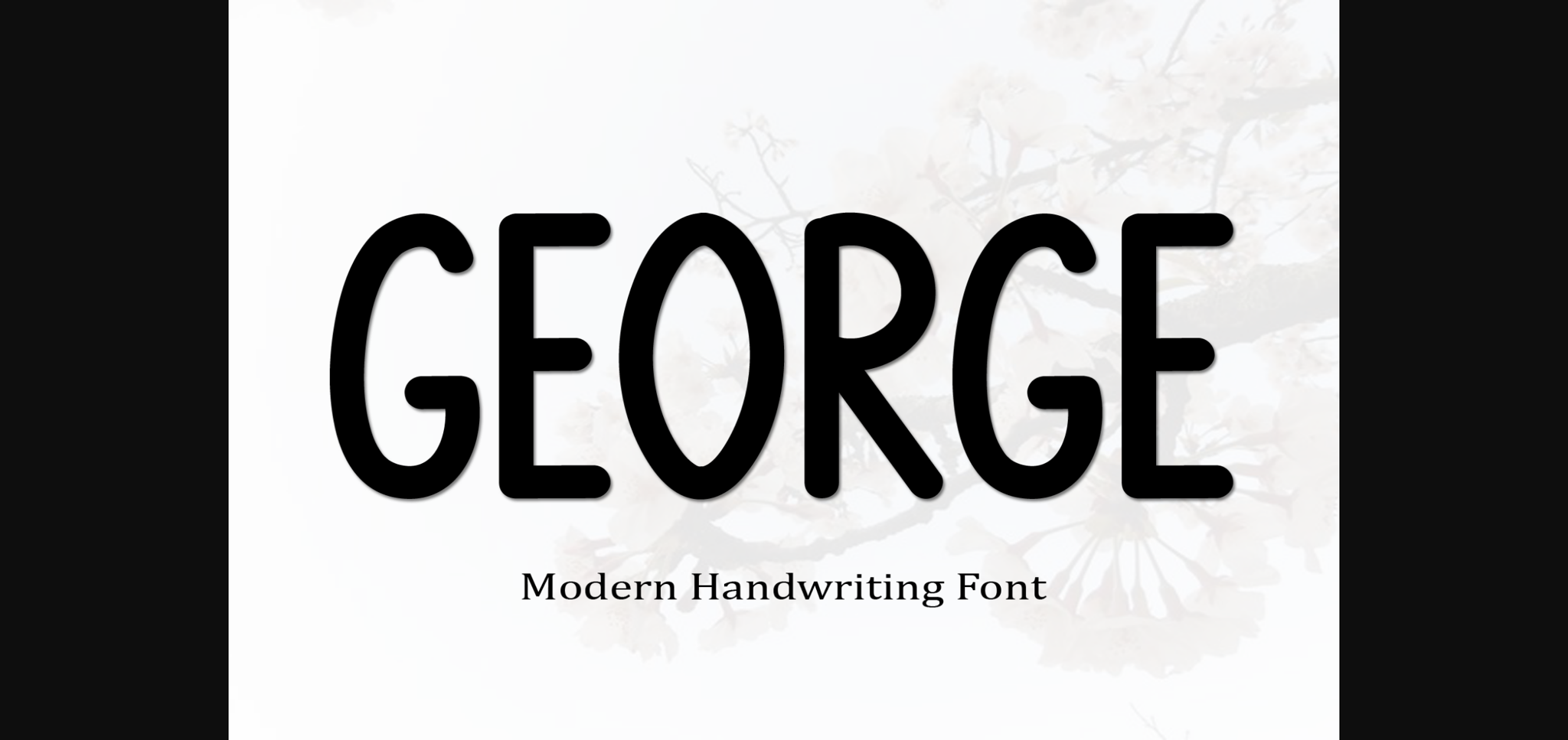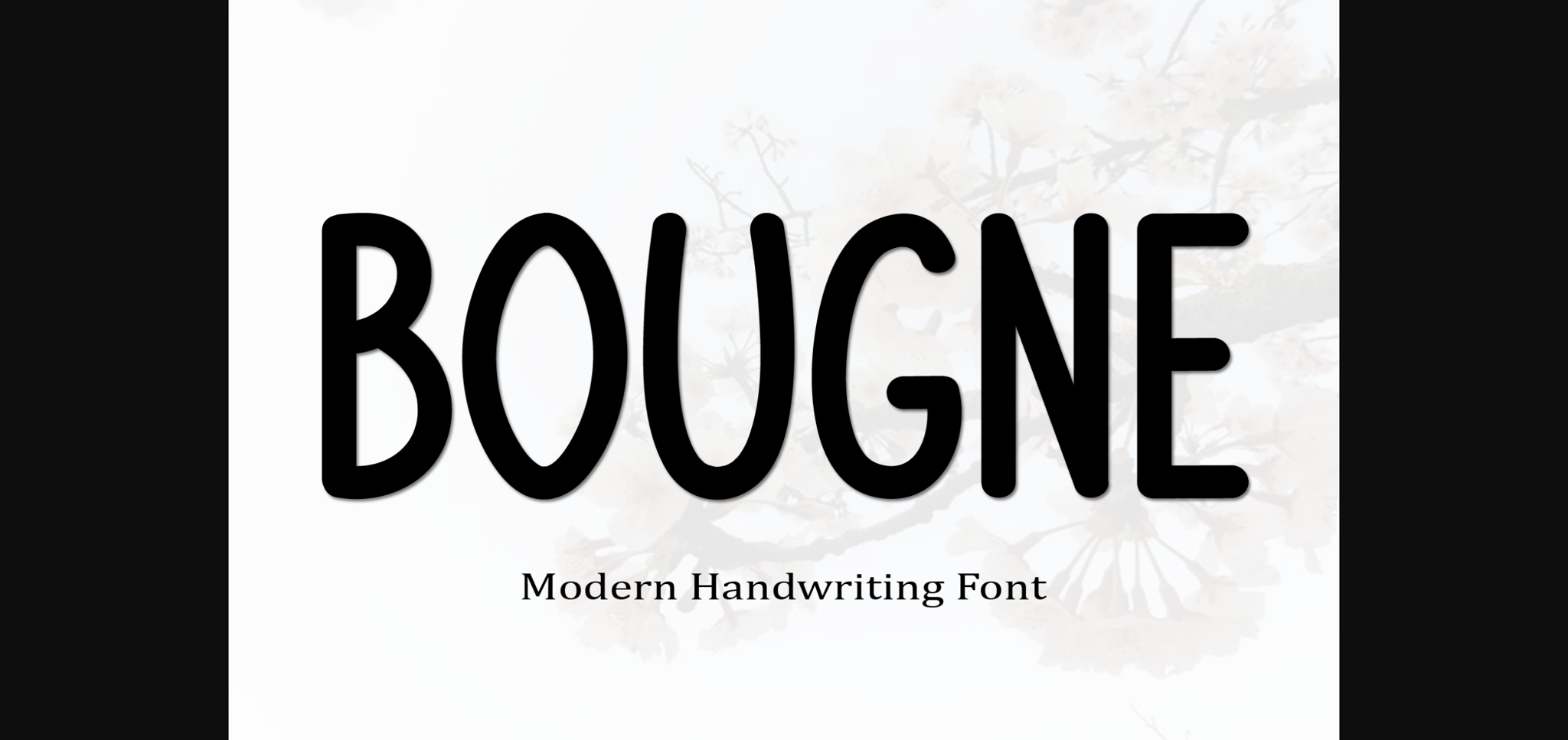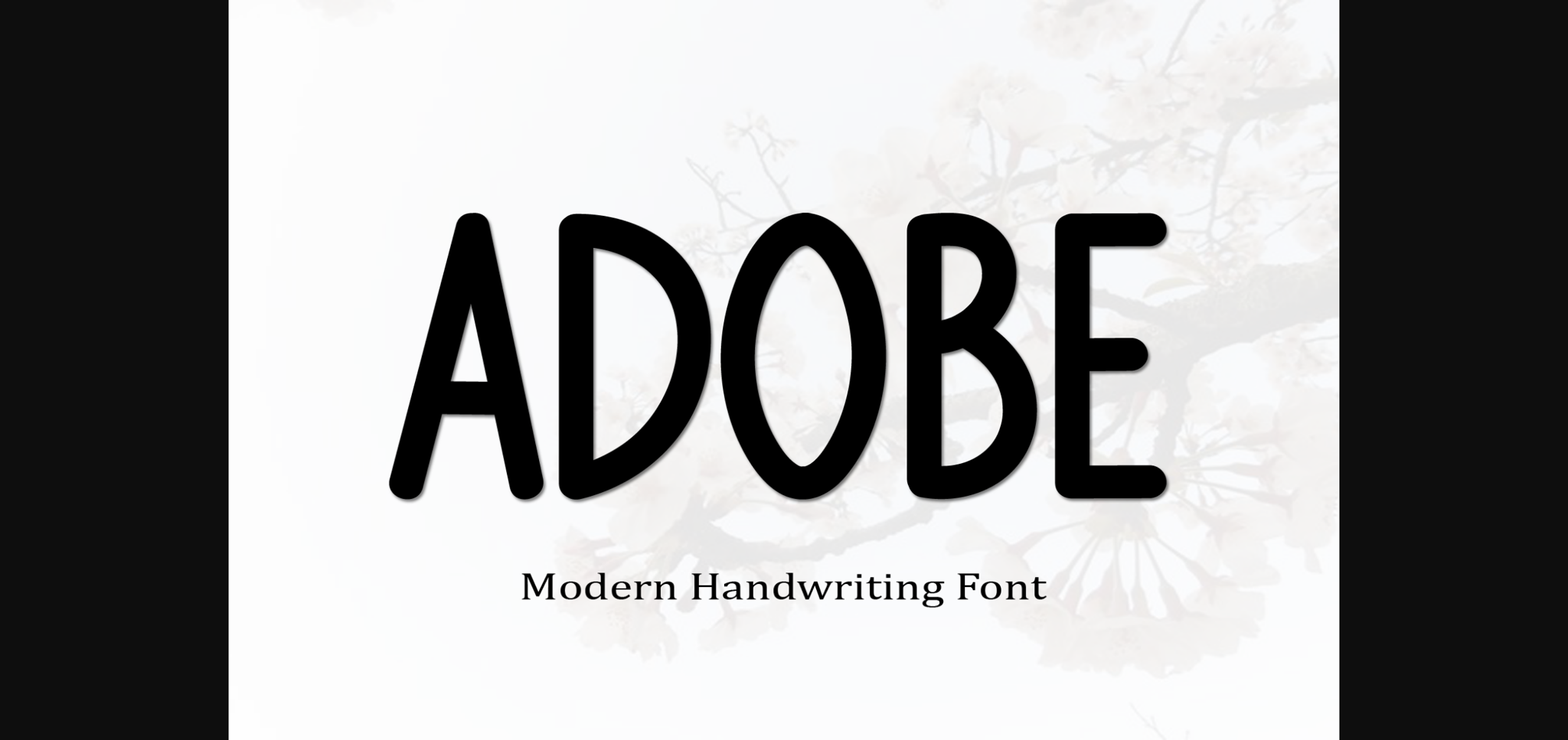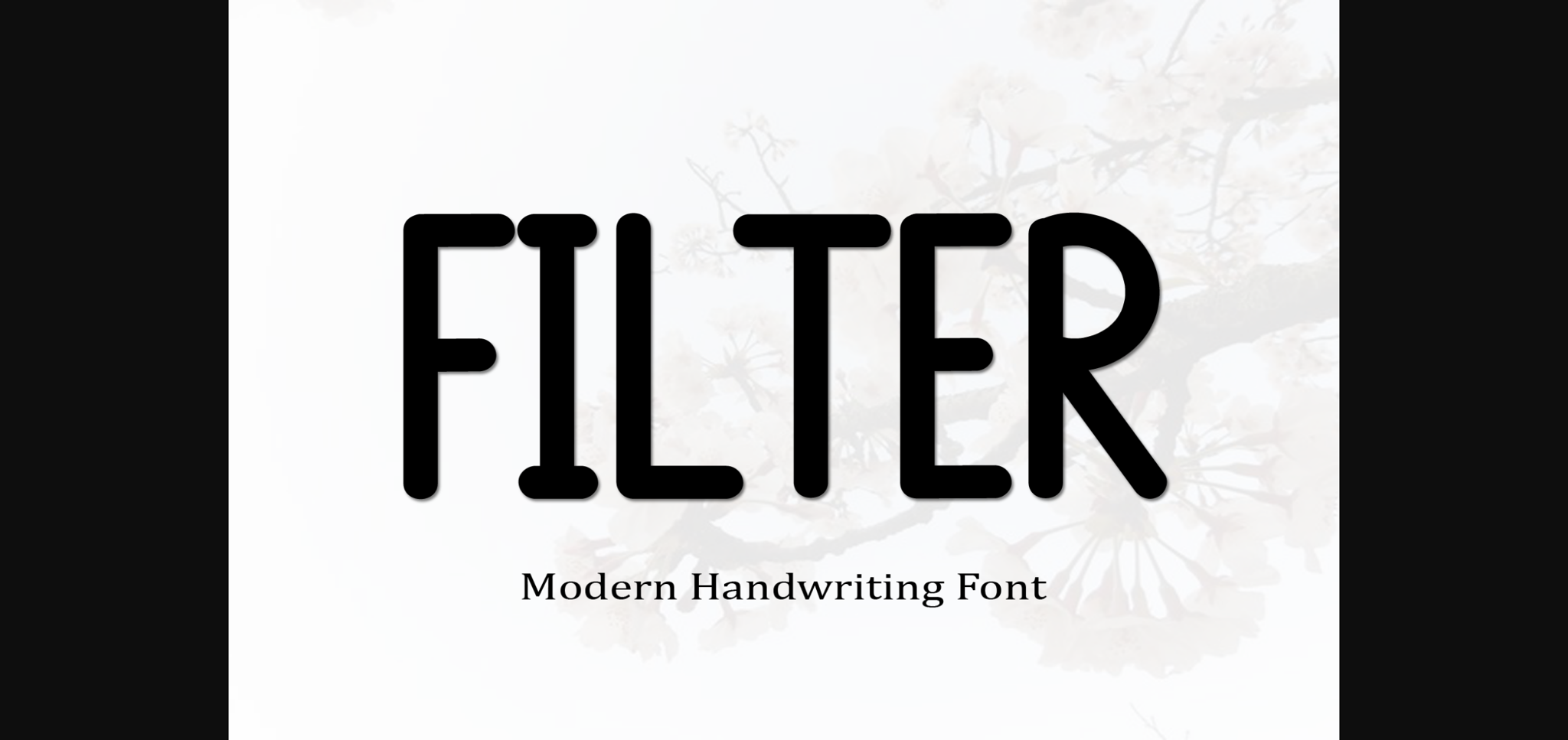
HomeSans Serif FontsGeorge Font Sans Serif Fonts George Font FacebookXPinterestWhatsApp 1 of 6 ... George Font Poster 2... George Font Poster 3... George Font Poster 4... George Font Poster 5... George Font Poster 6... About George Font George is a classic and simple sans serif font. Incredibly versatile, this font will be great for a wide variety of projects. DOWNLOAD NOW People also explored Bee Honey Font Balisa Script Font Love Moment Font Beautiful Night Font Honeymoon Font Washington Font Chomono Monogram Font Shillaute Font Betterize Font 279 0 TagsGeorgeGeorge Font Previous articleGeneral FontNext articleCivic Font LEAVE A REPLY Cancel reply Comment: Please enter your comment! Name:* Please enter your name here Email:* You have entered an incorrect email address! Please enter your email address here Website: Save my name, email, and website in this browser for the next time I comment. Personal Use Free Callisa Script Personal Use Free Read more about this font Cute Butterfly Personal Use Free Read more about this font Frizton Personal Use Free Read more about this font Adelfa Personal Use Free Read more about this font BLOG Modern Sans-Serif Fonts That Brands Love in 2025 In 2025, modern sans-serif fonts remain a top choice for brands looking to project clarity, professionalism, and... The 10 Best Handwriting Fonts to Add Personality to Your Designs How to Install and Use Fonts on Windows, macOS, and Web Projects Exploring Font Trends